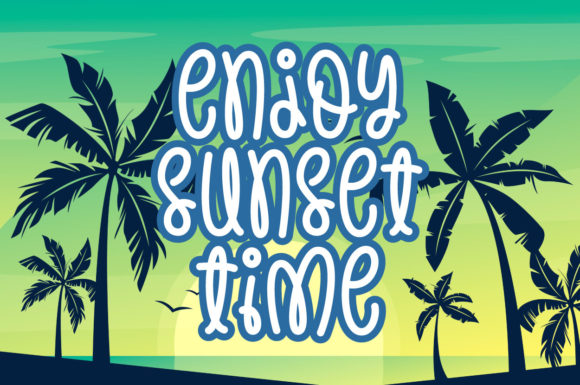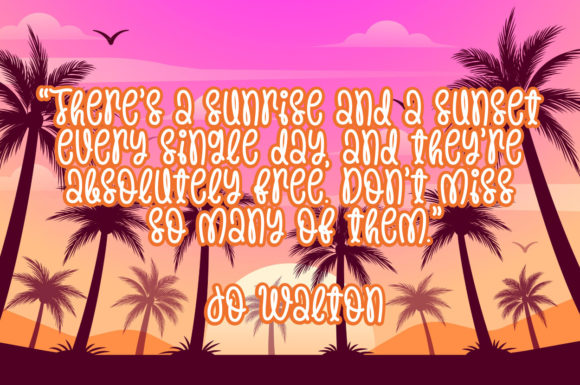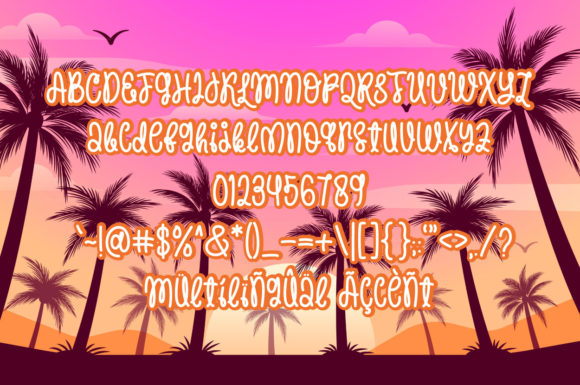
Introduction to Short Autumn Font
Short Autumn is a quirky handwritten font.
Its friendly feel makes this font incredibly versatile, fitting a wide range of contexts It looks stunning on thank you cards, quotes, greeting cards, logos, business cards, and other designs.
Why Choose Short Autumn Font?